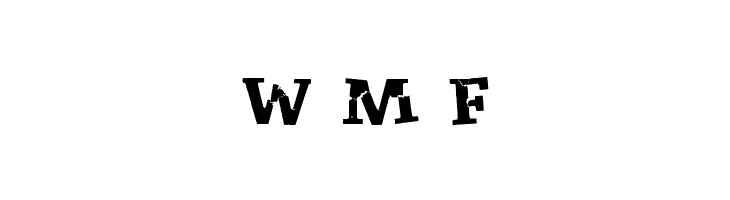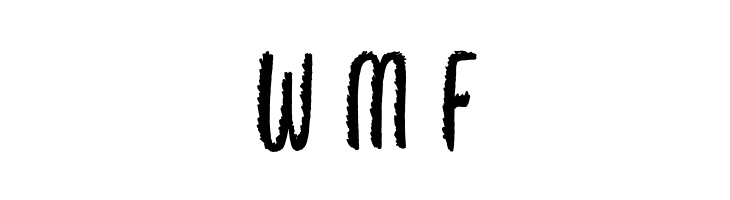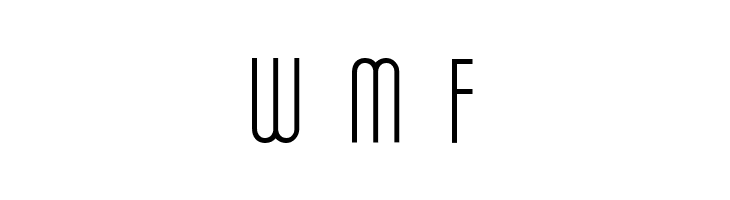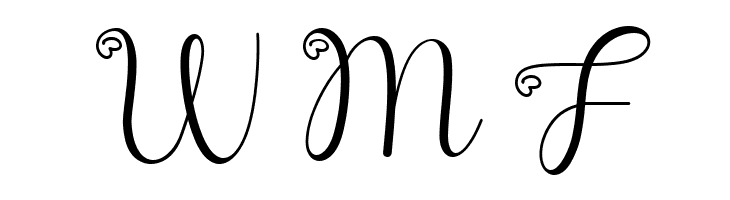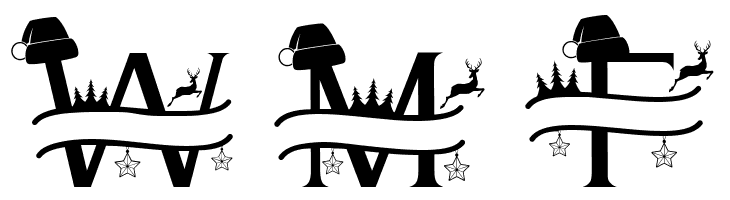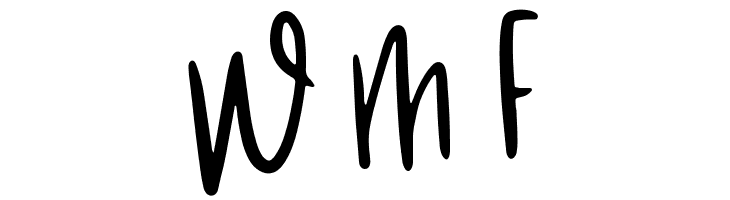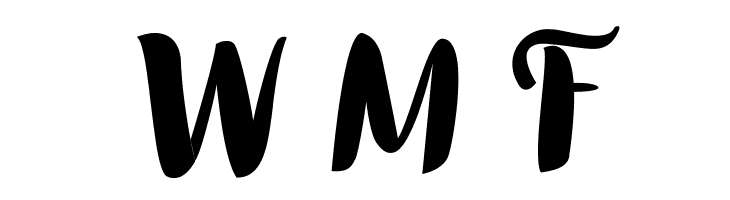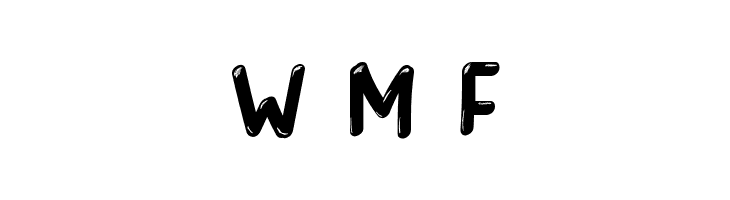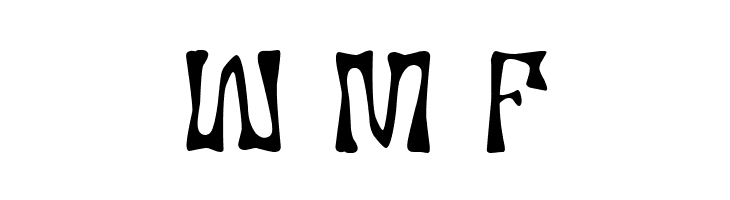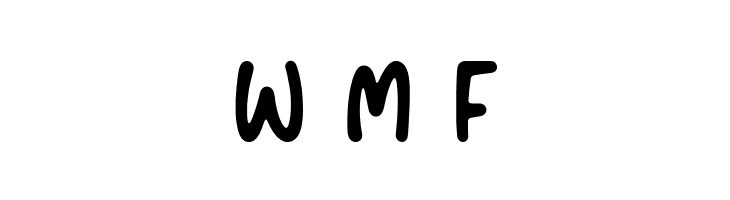
A fluid, cursive script font with a dynamic handwritten style.
A bold, artistic font with a hand-drawn, whimsical style.
A bold, distressed stencil font with an industrial, rugged appearance.
A playful, casual handwritten font with smooth, flowing lines.
A bold, futuristic font with sharp angles and a geometric structure.
A futuristic, italic font with sharp angles and high contrast, perfect for dynamic designs.
A bold, playful script font with a chunky, dynamic style.
A playful and whimsical font with rounded, curly elements and a lively appearance.
A bold, playful handwritten font with rounded strokes and a whimsical style.
A playful, hand-drawn font with bold, textured strokes and a whimsical style.
A bold, expressive script font with flowing, cursive letterforms.
A playful, bold font with rounded, bubbly characters.
A playful, rounded font with a hand-drawn, friendly appearance.
A bold, playful handwritten font with rounded, thick strokes.
A modern, thin, and elegant font with elongated, narrow characters.
A bold, high-contrast font with dramatic curves and artistic flourishes.
A playful, bold font with rounded edges and a bubbly appearance.
A bold, rounded, and slightly italicized font with a playful and friendly style.
A whimsical script font with elegant swirls and heart accents.
A playful, bold italic font with a handwritten style.
A festive, decorative font with Christmas-themed embellishments.
A playful, bold, and rounded font with a hand-drawn feel.
A playful, bold italic font with rounded characters and medium contrast.
A playful, handwritten font with bold, irregular strokes and a whimsical charm.
A playful, italicized font with a notebook page background, ideal for creative and informal projects.
A playful, handwritten font with bold, rounded characters.
A playful, heart-accented font with bold, rounded characters.
A playful, handwritten font with bold, rounded strokes and a whimsical style.
A playful handwritten font with decorative elements and a friendly, casual style.
A playful, hand-drawn font with bold, rounded characters.
A playful, handwritten font with smooth, rounded edges and a casual style.
A playful, bold font with rounded, bubbly characters.